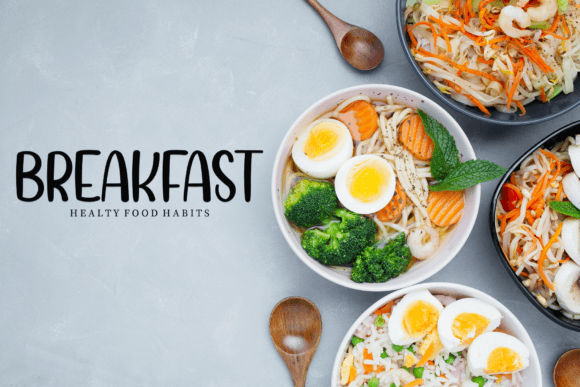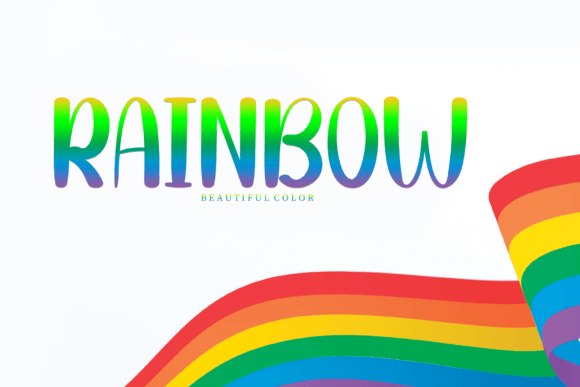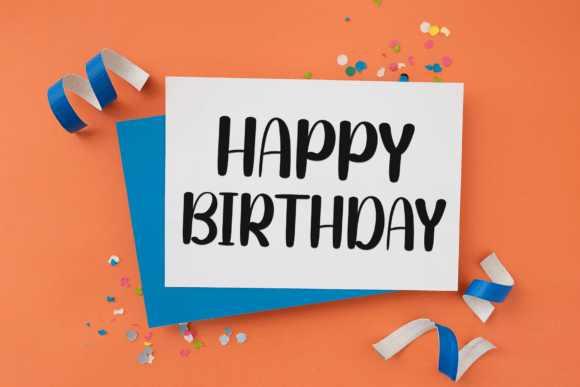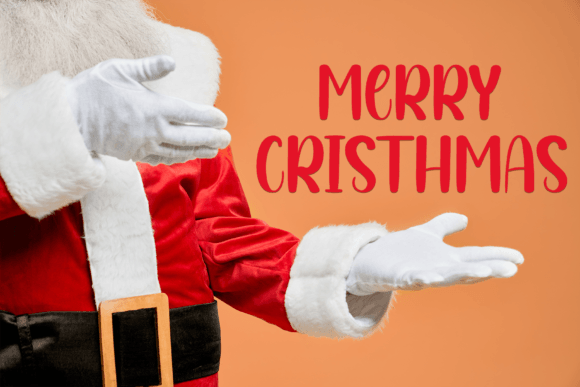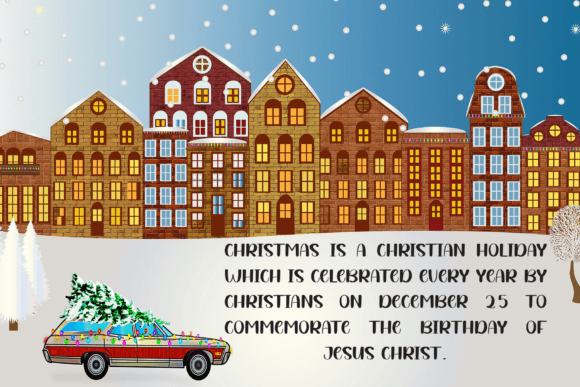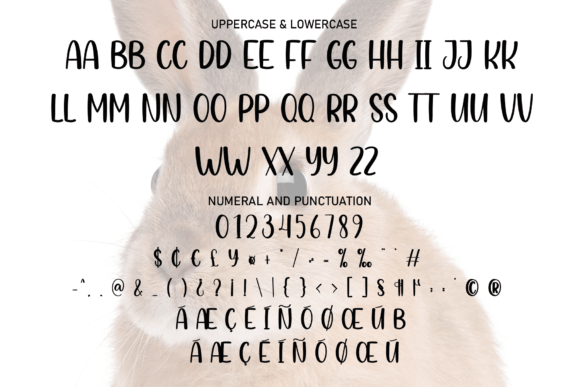
The Perfect Font for a Spring of Love
As I sat in my cozy home office, surrounded by scraps of paper, paint swatches, and a steaming cup of coffee, I found myself in need of a creative spark. My mind wandered to a wedding invitation I was designing for a dear friend’s special day. I wanted something that captured the joy and sweetness of the occasion. That’s when I stumbled upon the perfect font – Bunny Font. This adorable handwritten font is the epitome of springtime charm and whimsy.
Bunny Font is a delightful addition to any design project, adding a touch of friendliness and approachability. Its fresh and neat aesthetic makes it ideal for writing wedding invitations, cards, or any other design that needs a fun touch. For designers, Bunny Font is a valuable asset, offering a unique and playful way to express their creativity.
Bunny Font Key Features
- Font Family: Bunny Font is a sans-serif font family designed specifically for digital use.
- Unique Characteristics: Bunny Font features a playful, cursive-like design with rounded edges and subtle flourishes, making it perfect for children’s content, cartoons, and animations.
Bunny Font Review
Overall, I was excited to dive into the Bunny Font, and I have to say, it’s a cute and playful addition to any design project. ✨ The font’s rounded edges and gentle curves evoke a sense of whimsy and fun, making it perfect for children’s books, advertising, or social media campaigns. ✨ The font is also highly legible, even at small font sizes, which is a major plus.
However, I did notice a few limitations that might impact its usability in certain situations. ⚠️ For one, the font can feel a bit too cartoonish for some projects, which might detract from a more serious or professional tone. ⚠️ Additionally, the font’s rounded edges can make it difficult to use in situations where a more precise or geometric look is required.
- Highly legible, even at small font sizes
- Cute and playful design
- Perfect for children’s books, advertising, and social media campaigns
- Can feel too cartoonish for some projects
- Difficult to use in situations requiring a more precise or geometric look
Overall, the Bunny Font is a fun and versatile addition to any designer’s toolkit. While it may not be the best choice for every project, it’s certainly worth considering for those that require a playful and whimsical touch.
Bunny Font is commonly used in:
– Children’s book illustrations
– Cartoon-style designs
– Whimsical branding and marketing materials
– Playful social media graphics
Tips for Getting the Most Out of Bunny Font
For the best results, use Bunny Font with bold colors and playful textures. Experiment with different font sizes and combinations to add visual interest to your designs.